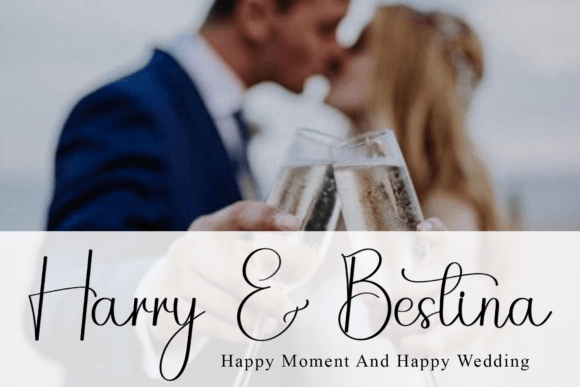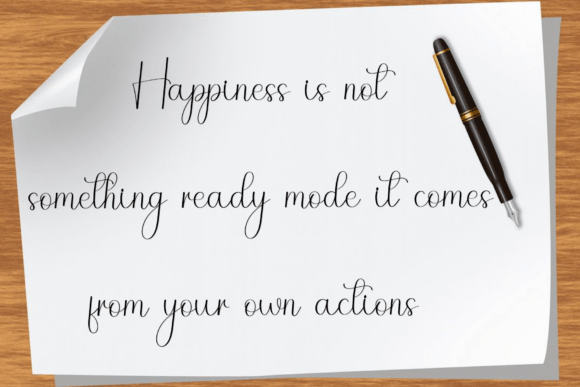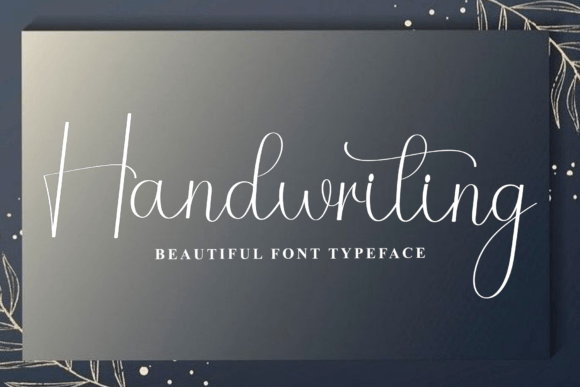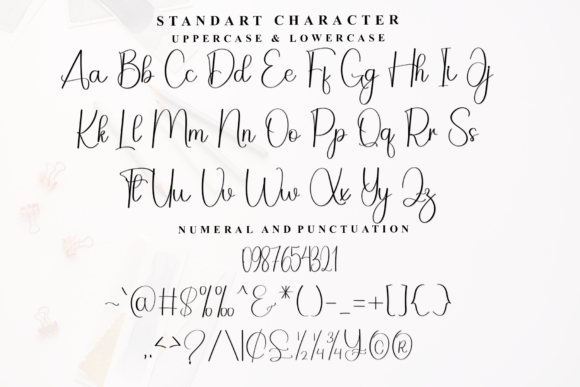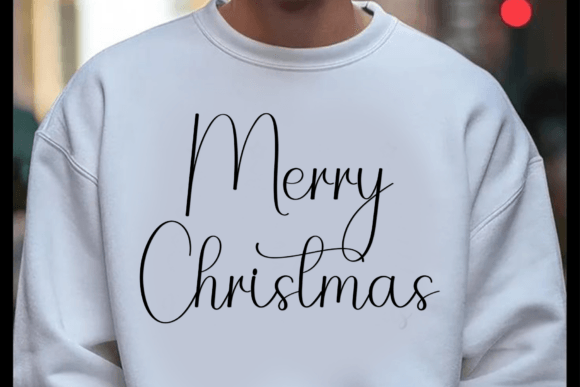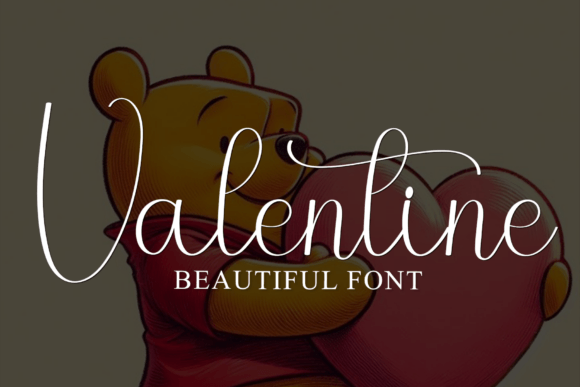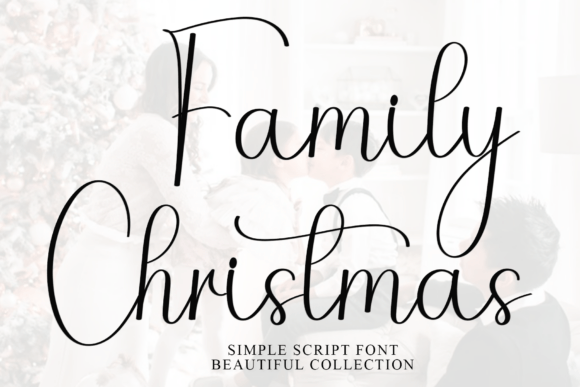
Introducing the Magical Family Christmas Font: Elevate Your Designs with Festive Flair
The holiday season is upon us, and what better way to get into the spirit than with a beautiful, festive font? Look no further than the Family Christmas font, a stunning typeface that’s sure to add a touch of magic to your designs. With its smooth touch and beautiful strokes, this font is perfect for creating a wide range of projects that exude a natural, effortless feel.
What Makes Family Christmas Font So Special?
So, what sets the Family Christmas font apart from other festive fonts on the market? For starters, its unique blend of smooth lines and delicate strokes gives it a distinctly natural feel that’s hard to find in other fonts. Whether you’re designing a holiday greeting card, a festive banner, or a cozy winter-themed logo, this font is sure to bring a touch of warmth and personality to your work.
But the Family Christmas font isn’t just limited to holiday-themed projects. Its versatility makes it suitable for a wide range of design applications, from wedding invitation cards and clothing mockups to YouTube thumbnails and logo designs. Whether you’re a professional designer or a crafty DIY enthusiast, this font is sure to become a go-to in your toolkit.
Endless Design Possibilities with Family Christmas Font
So, what can you create with the Family Christmas font? The possibilities are endless! Here are just a few ideas to get you started:
- Banners: Create eye-catching holiday banners with the Family Christmas font that are sure to grab attention. Use it to promote a sale, announce a holiday event, or simply add some festive flair to your website or social media channels.
- YouTube Thumbnails: Stand out on YouTube with custom thumbnails that showcase your personality and style. The Family Christmas font is perfect for creating thumbnails that are both festive and informative.
- Logo Designs: Give your brand a holiday makeover with a custom logo design featuring the Family Christmas font. It’s a great way to add some seasonal flair to your branding without sacrificing professionalism.
- Wedding Invitation Cards: Make your wedding invitation cards truly special with the Family Christmas font. Its elegant, cursive strokes are perfect for formal or informal wedding announcements.
- Clothing Mockups: Design custom apparel for the holiday season with the Family Christmas font. From t-shirts to hoodies, this font is sure to make your designs stand out.
Why Choose Family Christmas Font?
With so many fonts on the market, why choose the Family Christmas font? Here are just a few reasons why designers and crafters love this festive typeface:
- Unique Style: The Family Christmas font has a unique, hand-crafted feel that’s hard to find in other fonts. Its smooth lines and delicate strokes give it a distinctly natural, effortless look.
- Versatility: Whether you’re designing a holiday project or a non-holiday project, the Family Christmas font is versatile enough to work in a wide range of design applications.
- Easy to Read: Despite its elegant, cursive strokes, the Family Christmas font is easy to read, even in smaller sizes. This makes it perfect for designs where legibility is key.
Get Creative with Family Christmas Font Today!